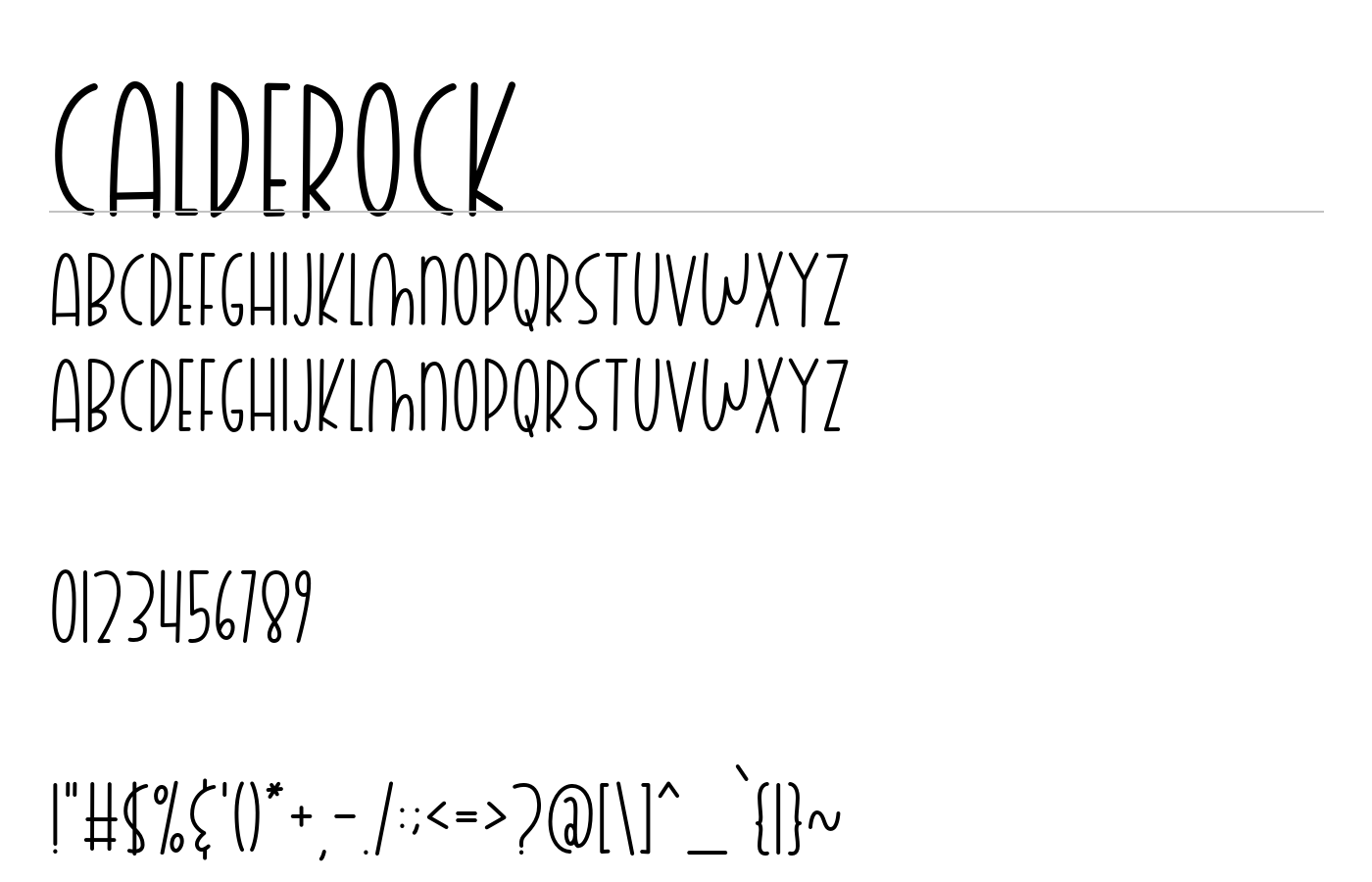
Calderock is a tall, narrow sans serif font with a playful and informal vibe, characterized by its thin lines and slightly irregular letter shapes that give it a hand-drawn feel. Its unique, quirky style makes it ideal for creative projects, casual branding, and headlines where a whimsical, friendly tone is desired. This font works well in invitations, posters, or children’s materials, adding a touch of personality without overwhelming the design.
Calderock Font
About Calderock Font